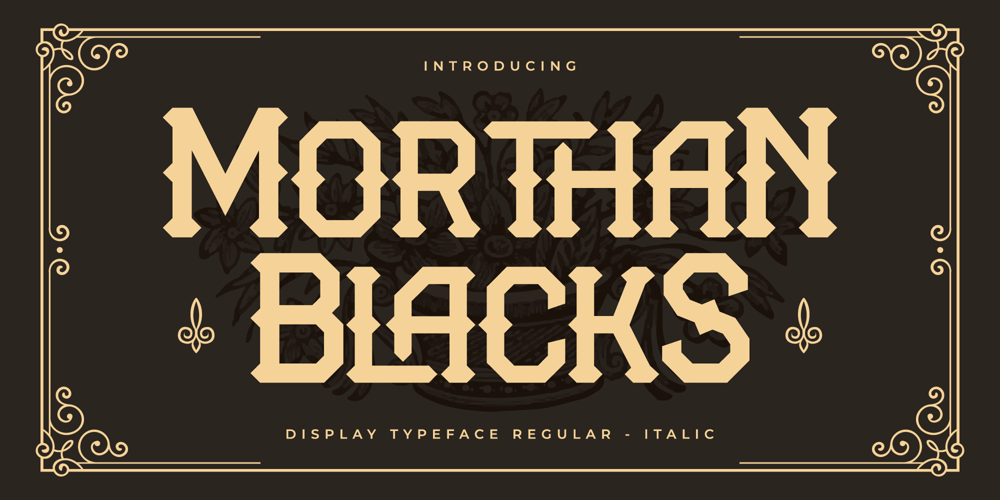
Morthan Blacks Font Family was designed by Heru Utama Putra and published by Letterena Studios. Morthan Blacks contains 2 styles and family package options. Proudly present Morthan Blacks Typeface , created by Storytype,A blackletter modern and classic typeface that has own unique style & modern look.This typeface is perfect for an elegant & luxury logo, book or movie title design, fashion brand, magazine, clothes, lettering, quotes, and so much more.–Uppercase